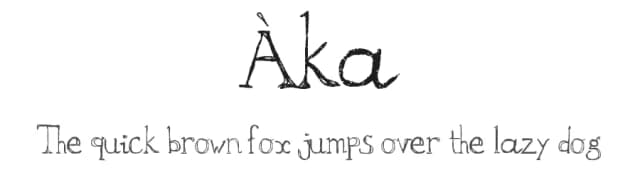
About Calligraphy Double Pencil Font
Calligraphy Double Pencil is a script & handwritten font designed by SpideRaYsfoNtS. It includes 121 glyphs, a regular weight, TTF (TrueType) format, and 107 languages. Calligraphy Double Pencil is free to download; check the license details on this page before commercial use. Script & handwritten fonts like Calligraphy Double Pencil work best for wedding invitations, greeting cards, signatures, and elegant branding.
Calligraphy Double Pencil Font is a script font that shines as a display or heading face. Pair it with a clean sans-serif or serif font for body text β the contrast creates a clear hierarchy while the two styles stay balanced and easy to read.